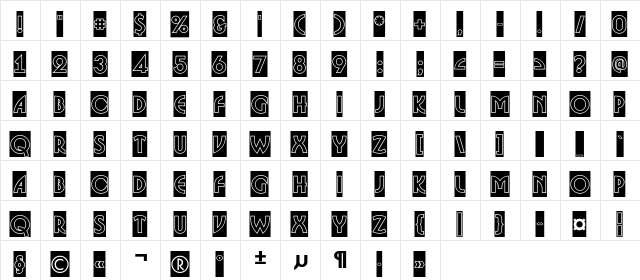
a_BosaNovaCmGr Regular Font Preview
a_BosaNovaCmGr Regular
Design Context for a_BosaNovaCmGr Typeface
a_BosaNovaCmGr takes a measured approach to typography — its balanced proportions and neutral character make it a reliable workhorse for both digital and print work.